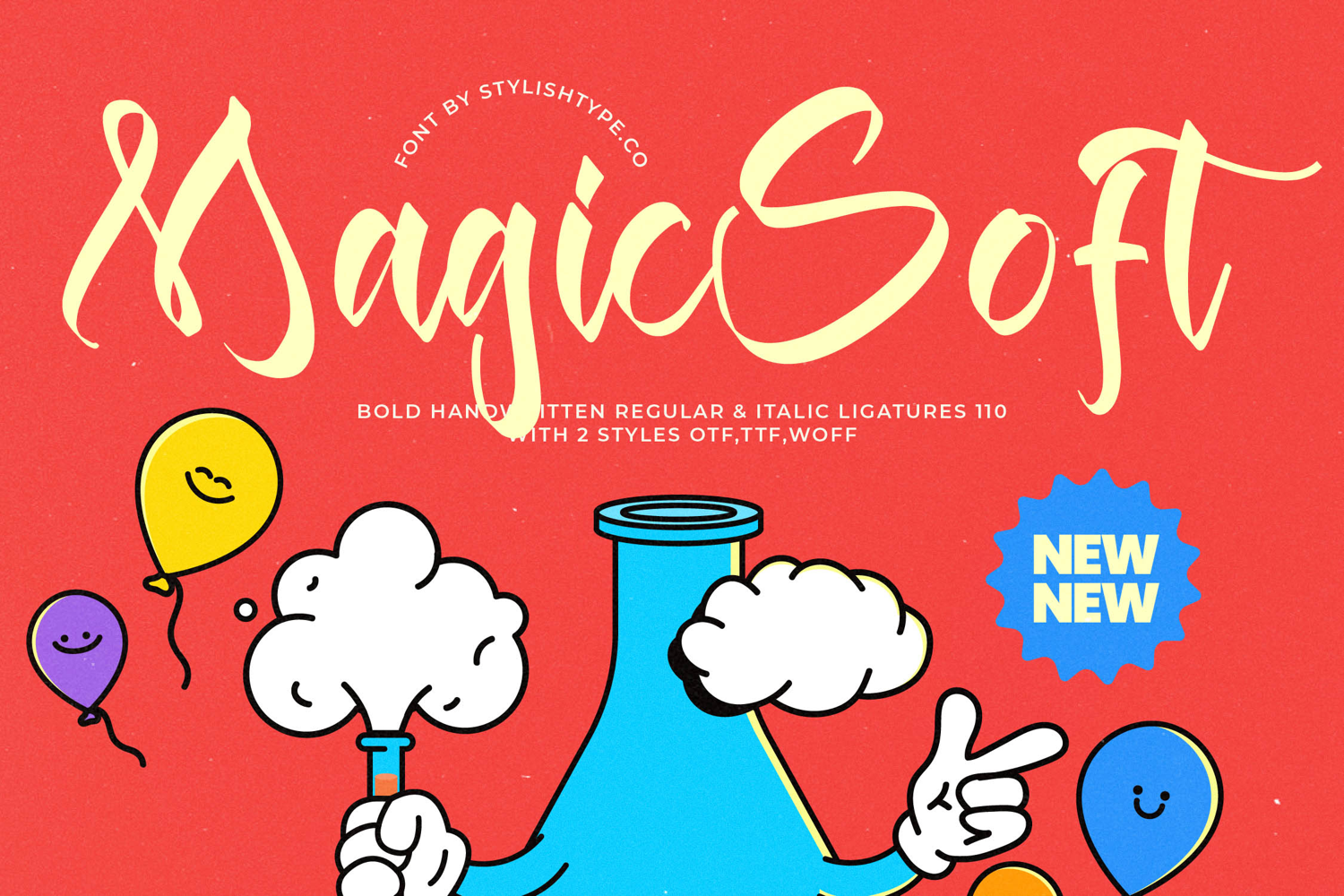
Magic Soft - Bold Handwritten Font
Inject instant personality and vibrancy into your designs with Magic Soft - Bold Handwritten Font. This dynamic script typeface captures the authentic energy of expert hand-lettering, featuring sweeping swashes and natural, flowing connections that ensure maximum visual impact. Its robust, bold weight guarantees stand-out visibility, making it the perfect choice for projects demanding an undeniable sense of fun and genuine connection with the audience, establishing a unique brand signature instantly recognizable in competitive marketplaces.